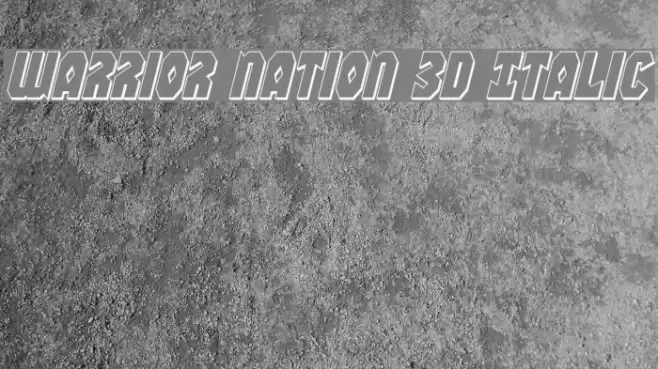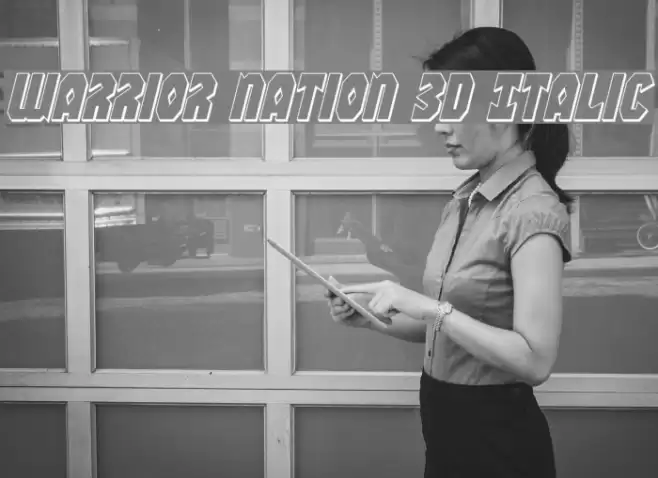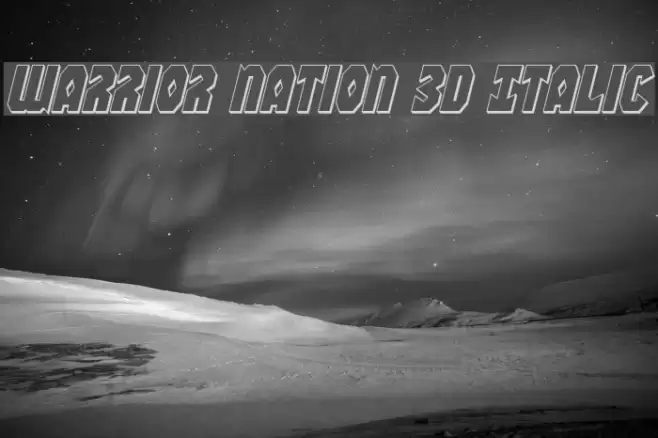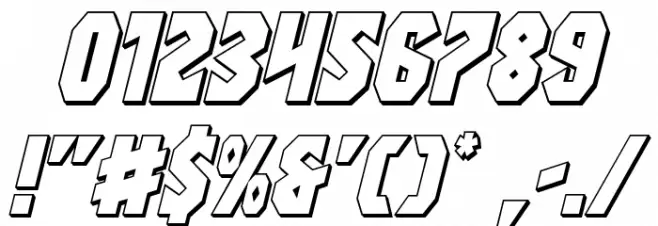
Warrior Nation 3D Italic Font
Warrior Nation 3D Italic Description
This font features a bold, three-dimensional design with a strong, angular structure. The characters are italicized, giving them a dynamic and forward-leaning appearance. Each letter is outlined, enhancing the 3D effect and adding depth. The style is reminiscent of futuristic or sci-fi themes, with sharp edges and a robust presence. The uppercase and lowercase letters maintain a consistent style, while the numbers and special characters complement the overall aesthetic. This font is ideal for projects that require a striking and impactful visual statement.
A bold, 3D italic font with a futuristic and angular design from Uncategorized fonts.
- Proposed Projects: Ideal for video game titles, movie posters, branding for tech companies, or any project needing a bold, futuristic look.
- Overall Style: Futuristic, Bold, Dynamic